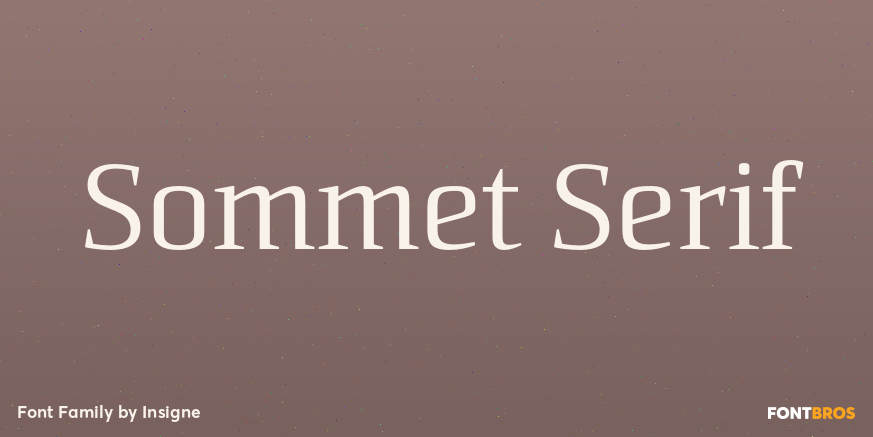
Sommet Serif
About Sommet Serif
The Sommet superfamily has been updated with a new serifed member. Expanding on Sommet\’s successful design principles, Sommet Serif is there when you need legibility for continuous text. Its interesting forms lend it to use as headlines as well. Sommet…